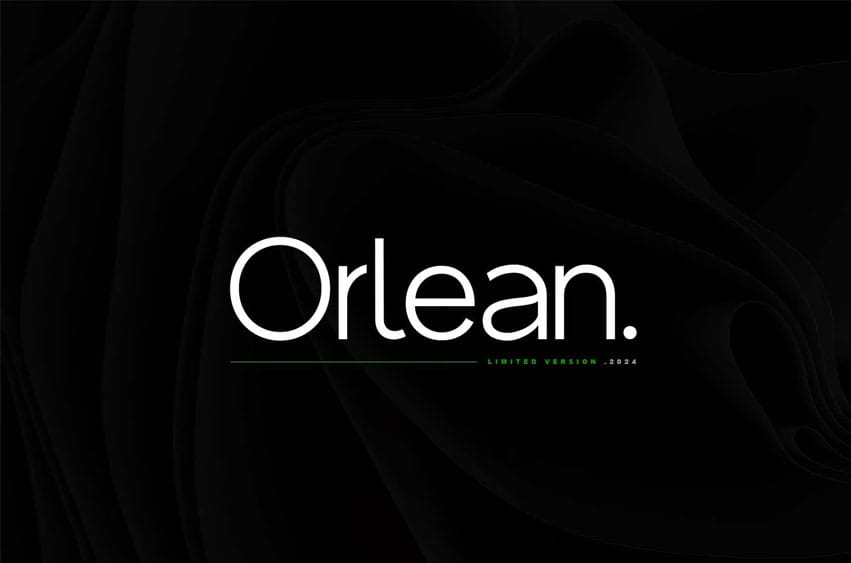
Orlean Font is a Unique Modern Elegant Typeface with Web-fonts. This font works great in large and small sizes. The Orlean font would be perfect for branding, logos, headlines, and captions & simply as a stylish text overlay to any background image.
Strong capitals and a smooth, open lowercase are effective in a variety of applications. It’s shown a clean, minimalist, warm, quirky, yet still purposed to be versatile and easy to read.